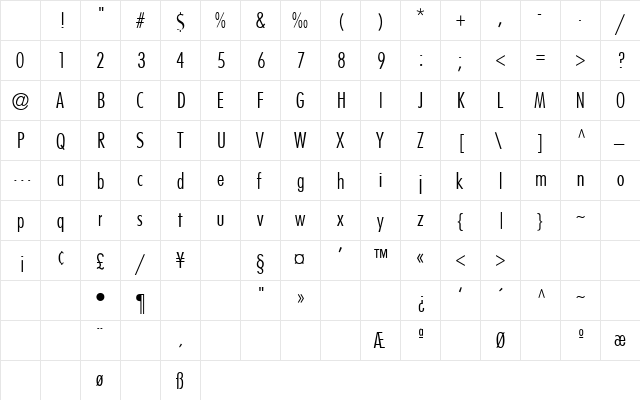
Kudos Light Condensed SSi Extra Light Condensed
Style: Extra Light Condensed
Kudos Light Condensed SSi Extra Light Condensed
Kudos Light Condensed SSi Extra Light Condensed Character Map
Complete Kudos Light Condensed SSi Extra Light Condensed glyph index. Displaying only characters natively supported by Kudos Light Condensed SSi Extra Light Condensed font.
Design Context for Kudos Light Condensed SSi
Kudos Light Condensed SSi is a composed and adaptable typeface that performs quietly and consistently across a wide range of design contexts. Its slender proportions lend an understated elegance to any composition. Its narrow stance lets it pack a punch even in space-constrained designs.